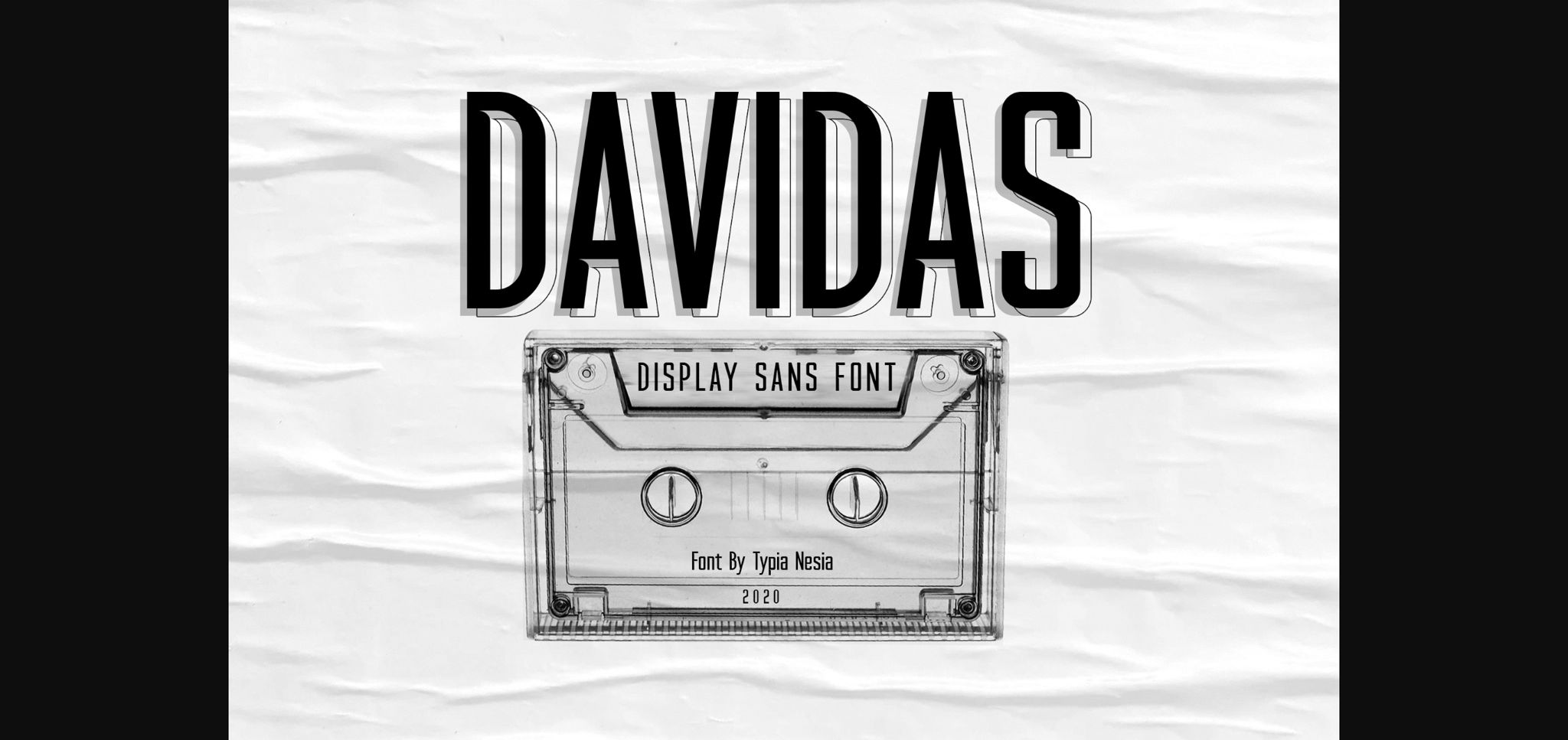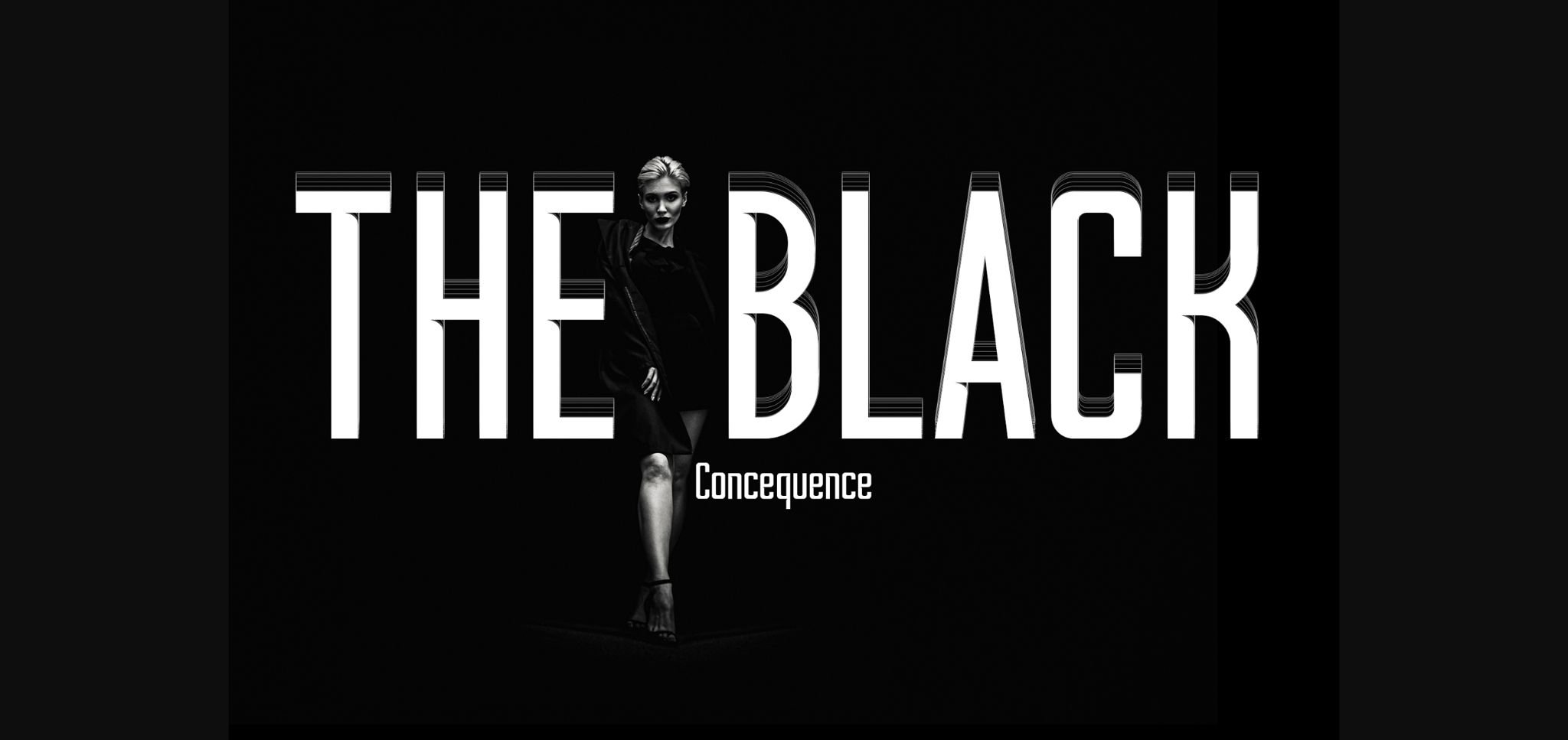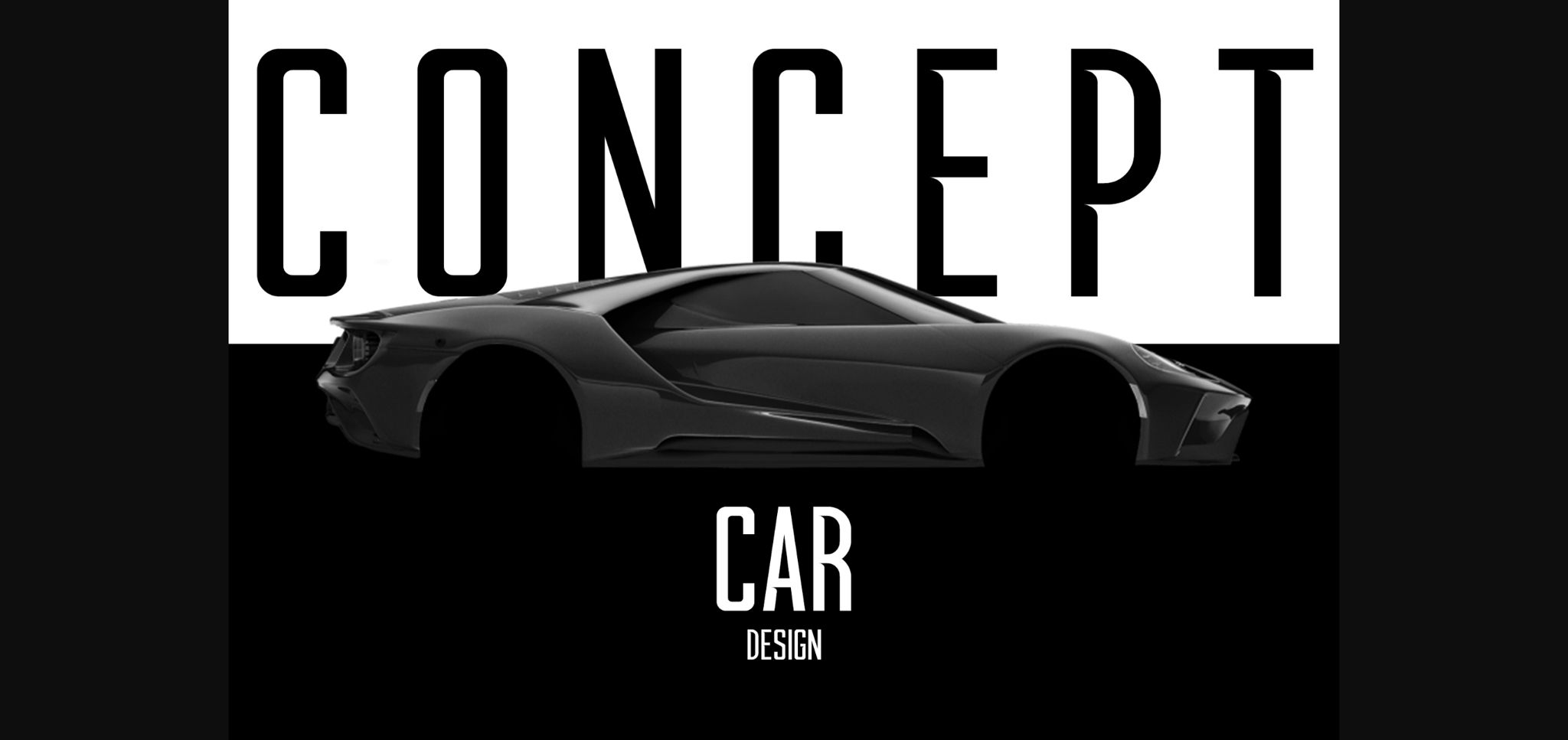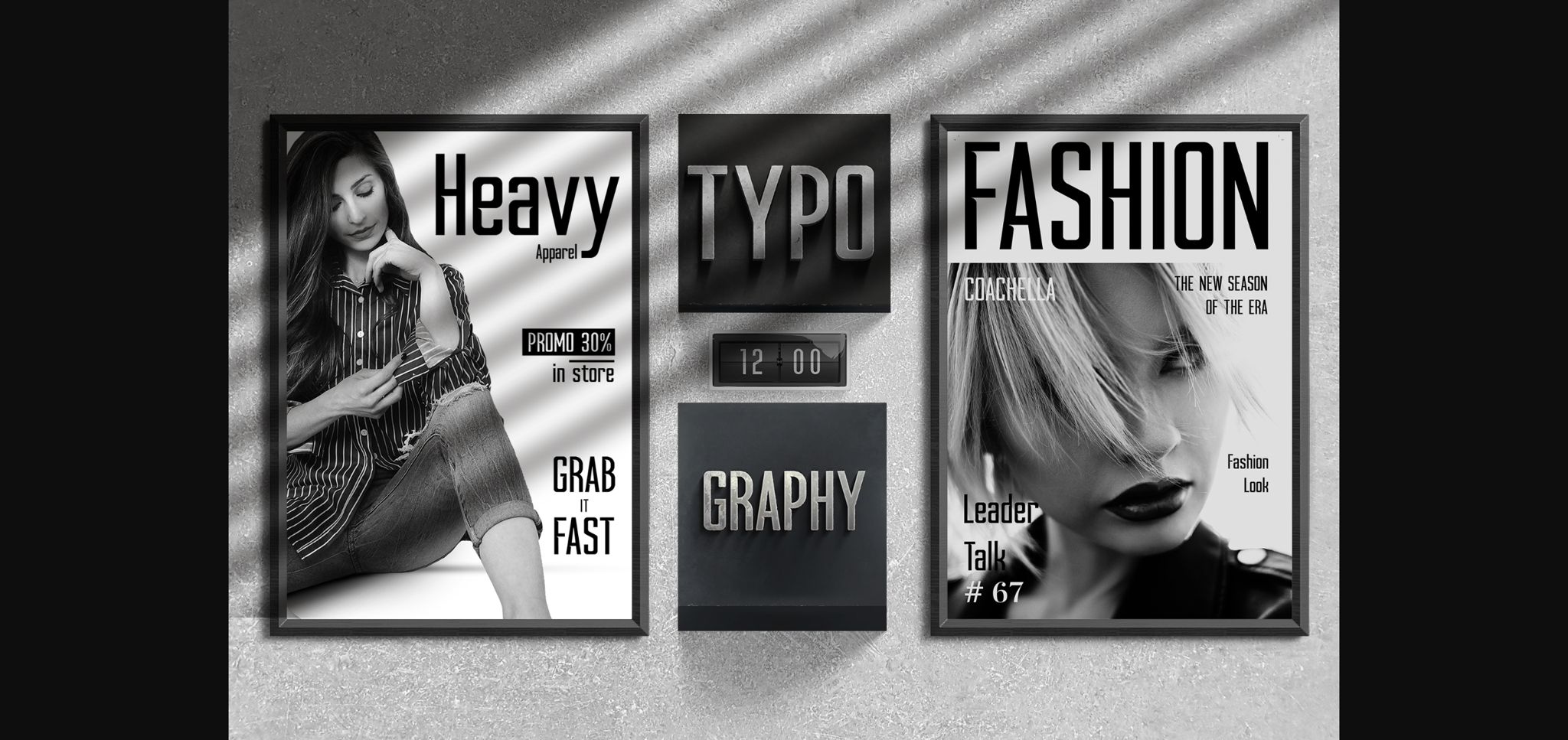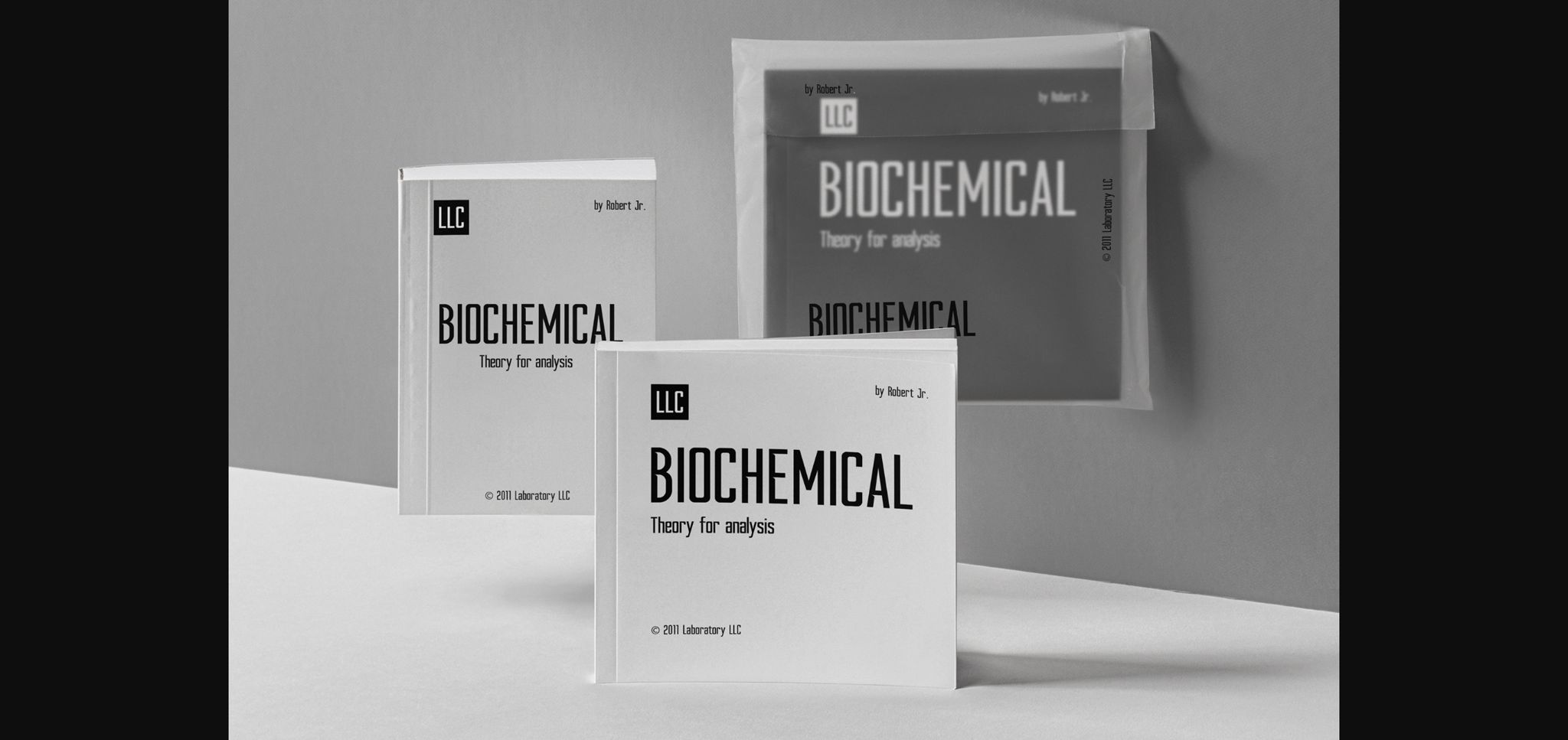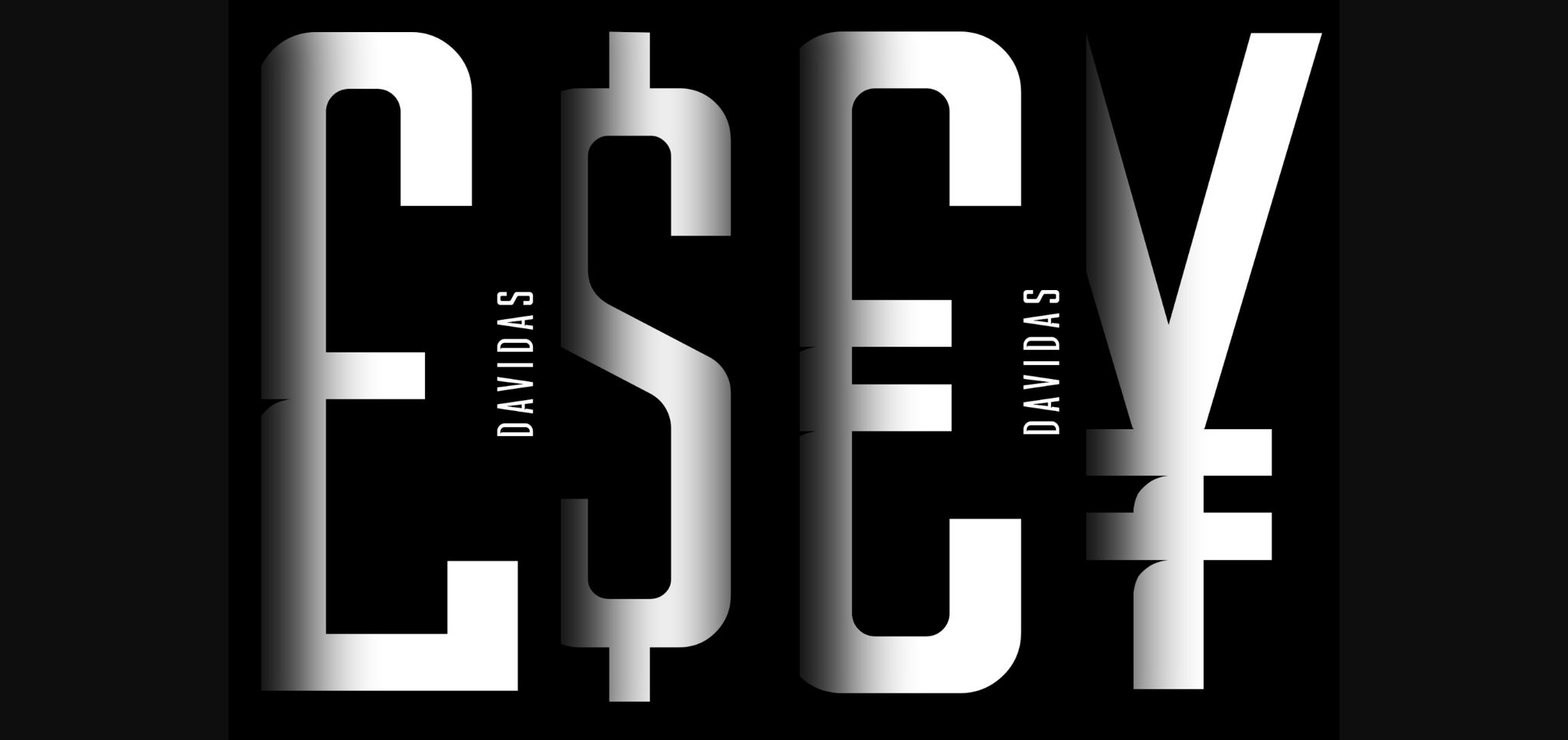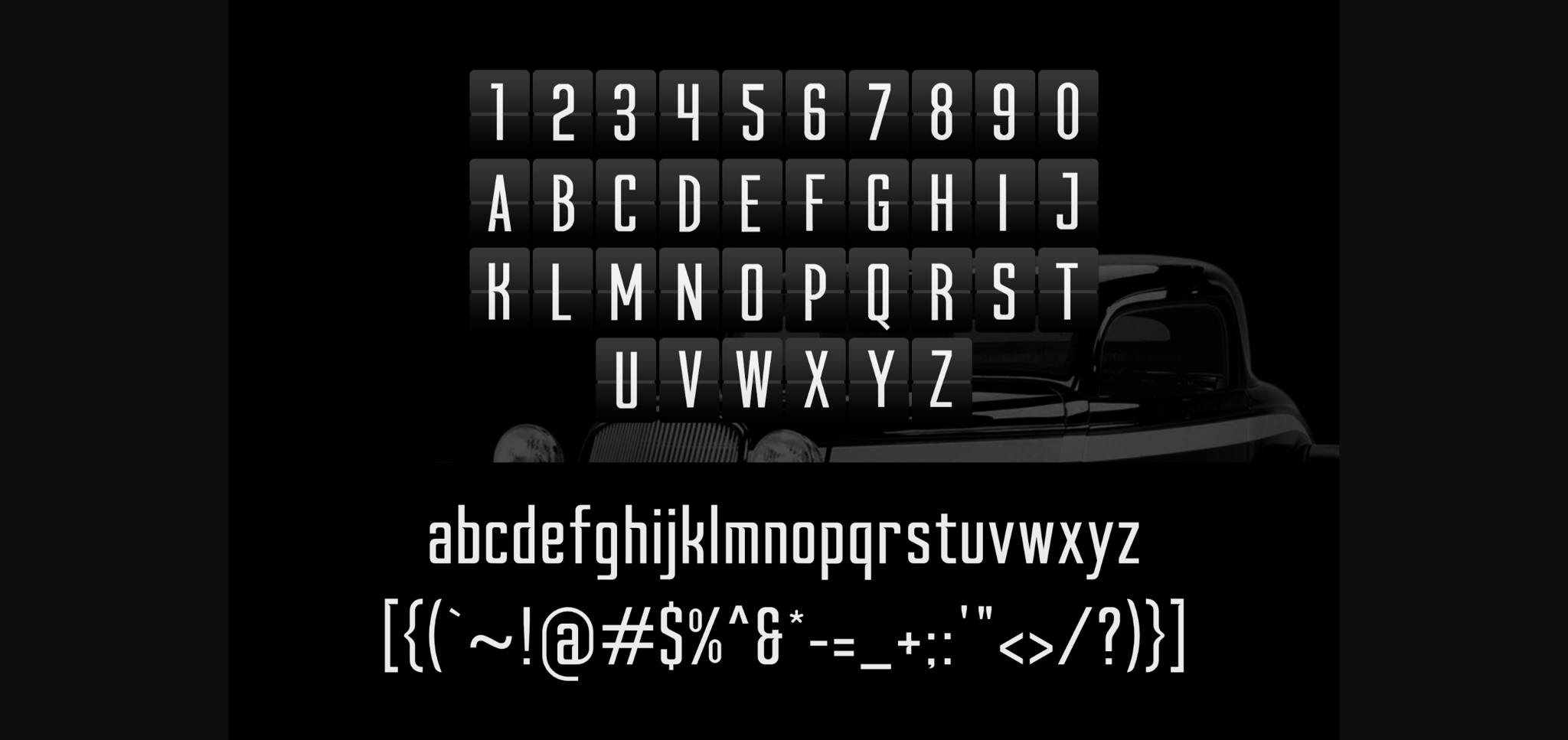
HomeSans Serif FontsDavidas Font Sans Serif Fonts Davidas Font FacebookXPinterestWhatsApp 1 of 9 ... Davidas Font Poster 2... Davidas Font Poster 3... Davidas Font Poster 4... Davidas Font Poster 5... Davidas Font Poster 6... Davidas Font Poster 7... Davidas Font Poster 8... Davidas Font Poster 9... About Davidas Font Davidas is a condensed sans serif font. It has a unique and strong look that makes it perfect for logos, branding, marketing, social media posts, quotes, and much more! DOWNLOAD NOW People also explored Alyssum Font Pastcode Font Pointone Font Beautify Script Font Orion Font Baby Shark Font Schools Mixs Font Better Dreaming Font Heltcorp Font 348 0 TagsDavidasDavidas Font Previous articleRollestix FontNext articleDeaisha Font LEAVE A REPLY Cancel reply Comment: Please enter your comment! Name:* Please enter your name here Email:* You have entered an incorrect email address! Please enter your email address here Website: Save my name, email, and website in this browser for the next time I comment. Personal Use Free Hollster Personal Use Free Read more about this font Alinda Personal Use Free Read more about this font Ciggs Personal Use Free Read more about this font BD TinyFont Personal Use Free Read more about this font BLOG Free Fonts Risk: Why Free Fonts Can Be Dangerous for Designers Free Fonts Risk: Why Free Fonts Can Be Dangerous for Designers Using free fonts is a common practice in web and graphic design. However, the... Where to Buy American Fonts Online in 2024 Top 7 Google Fonts Alternatives for Faster and Privacy-Friendly Web Design (2025) To increase your work productivity, choose the most readable fonts.